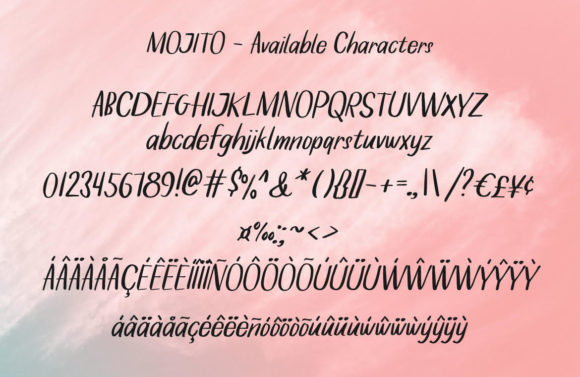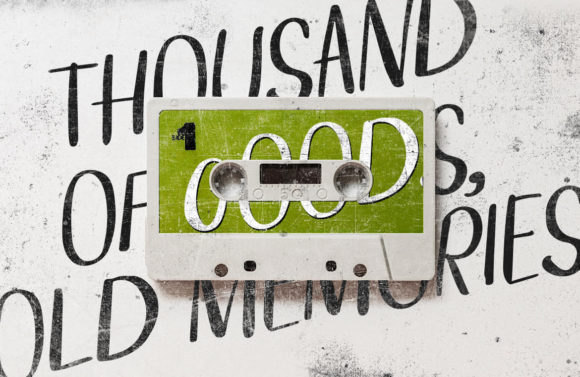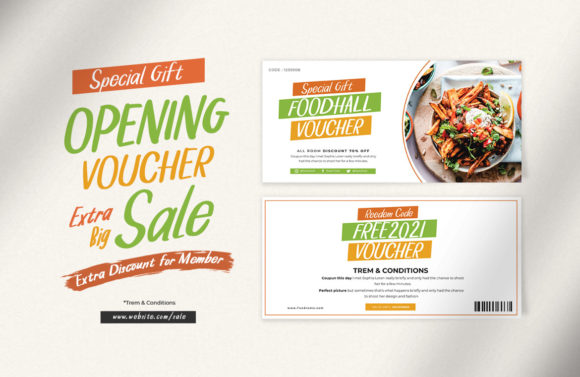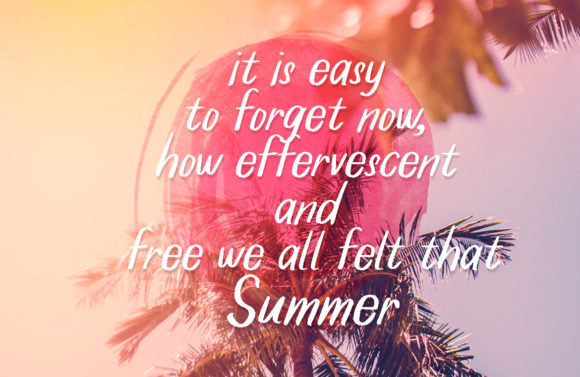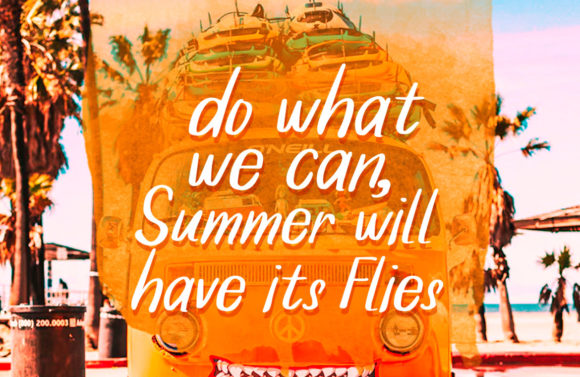
Introduction to Mojito Font
Do you ever find yourself brainstorming ideas for a creative project, only to be stuck on the perfect font to bring it all together? I know I do! Sometimes, all it takes is the right combination of style and personality to make your design truly shine. That’s where the Mojito Font comes in – a delightful, handwritten font that’s sure to add a touch of whimsy and charm to any project.
As a valuable resource for designers, the Mojito Font is a high-quality download that’s perfect for adding a personal touch to your designs. With its transparent background, you can easily place it over any image or texture, making it a versatile design resource that’s sure to come in handy. Whether you’re working on a free download or a paid project, this font is sure to be a hit with its sweet and full of life style.
So, what makes the Mojito Font so special? Let’s dive in and explore its unique features and benefits, and discover why it’s become a favorite among designers and creatives alike.
Key Features of Mojito Font
- Unique, hand-drawn style with a transparent background, ideal for adding a personal touch to your designs.
- Font size: 12,000+ glyphs, ensuring comprehensive language support and versatility in your creative project.
- Designed to be highly legible and visually appealing, making it an excellent choice for a wide range of creative projects.
Honest Review: Mojito Font
As a designer, I’m always on the lookout for high-quality fonts to elevate my creative projects. Recently, I stumbled upon the Mojito Font, and I’m excited to share my honest review with you.
- ✨ Unique and modern design aesthetic that adds a touch of sophistication to any project.
- ✨ Smooth and legible text, making it perfect for body copy and headings.
However, I do have a few reservations:
- ⚠️ Limited character set, which may not be ideal for projects requiring extensive typography.
- ⚠️ May not be suitable for small text sizes due to its relatively large x-height.
Overall, I’m impressed with the Mojito Font’s high quality and modern design. While it has its limitations, it’s a great addition to any designer’s arsenal, especially for creative projects requiring a touch of elegance. With its free download availability, it’s definitely worth checking out.
Mojito Font
For the best results, use the Mojito Font with a transparent background to create a clean and modern look. You can also experiment with different font sizes and styles to add emphasis and visual interest to your designs.
The Mojito Font is perfect for a variety of creative projects, including social media graphics, presentations, reports, and more. Its high-quality design and transparent background make it a great choice for anyone looking to add a professional touch to their work.